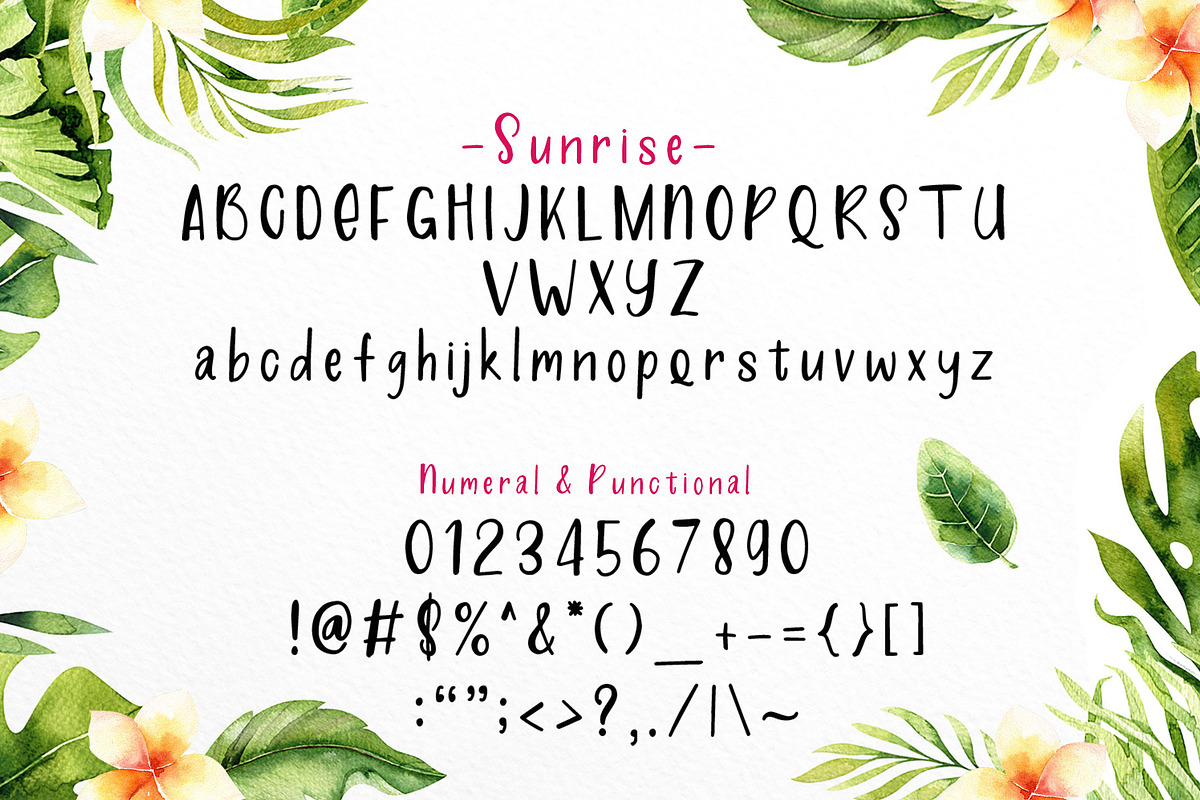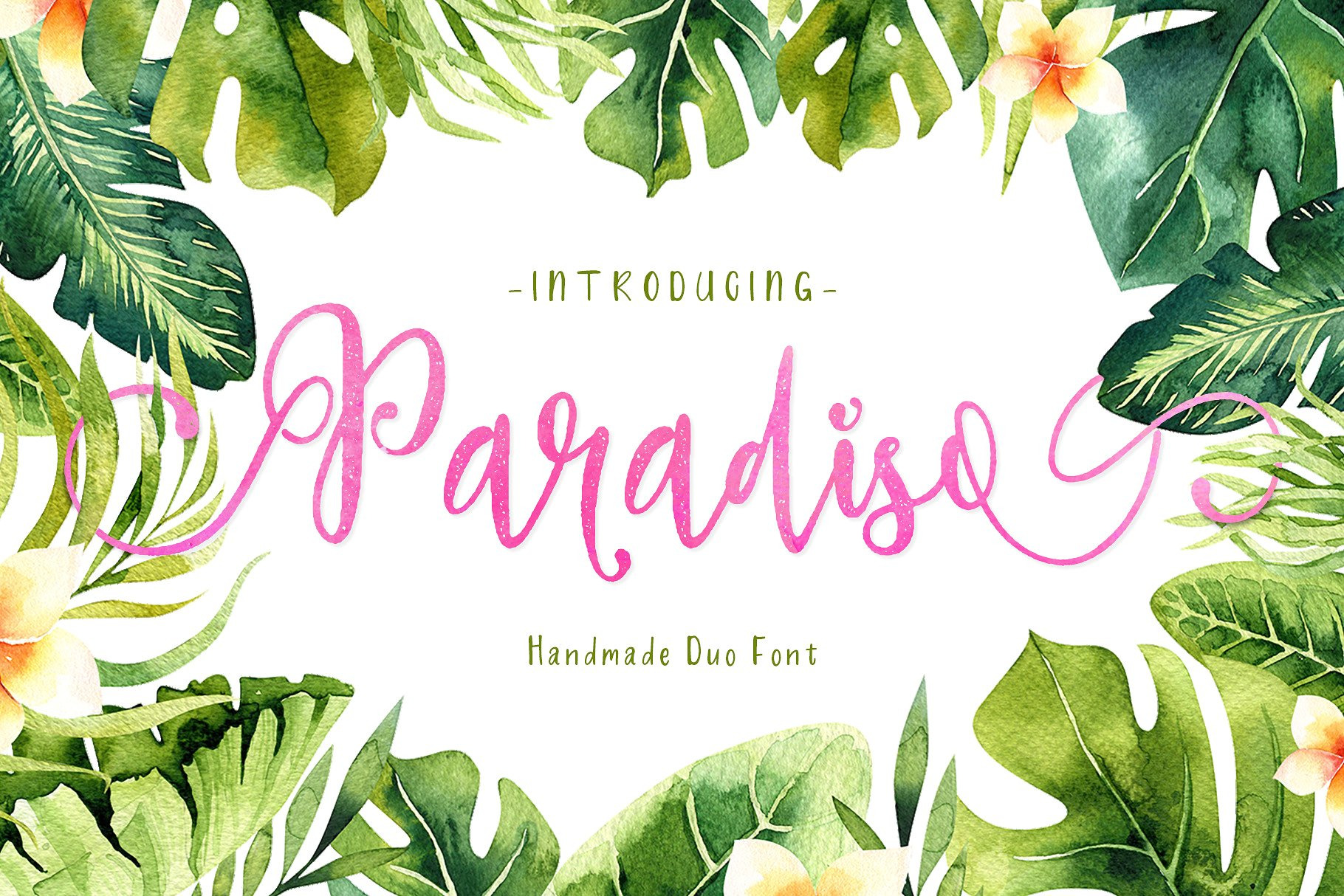
Paradiso - Fonts Duo
Say Hi to gorgeous rustic duo font Paradiso.
- Fonts NOW HAVE Language Support: AÀÁÂÃÄÅCÇDÐEÈÉÊËIÌÍÎÏNÑOØÒÓÔÕÖUÙÜÚÛWẂŴẄẀYÝŸỲŸÆŒßÞþ